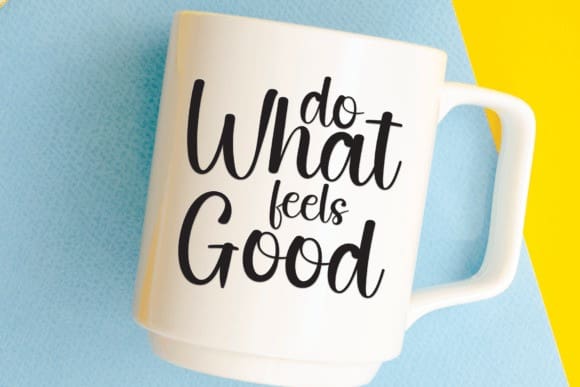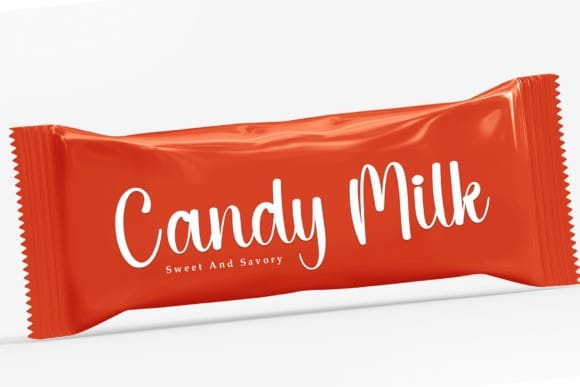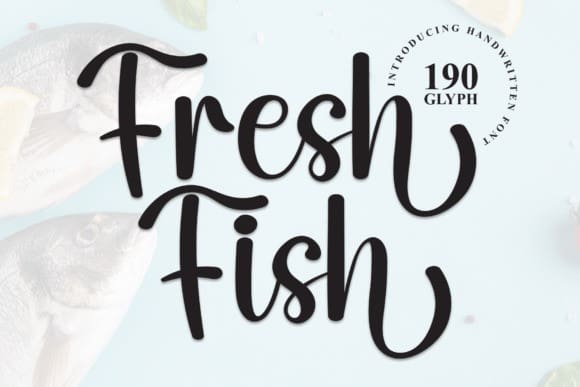
Fresh Fish Font
Fresh Fish Font is a flowing handwritten font, described by an elegant touch, perfect for your favorite projects. Fall in love with its incredibly distinct and timeless style and use it to create spectacular designs!